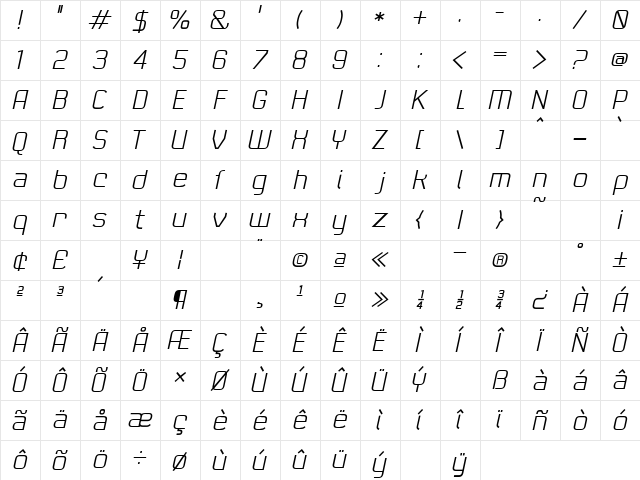
21st RegularItalic Free Font
21st RegularItalic
Style: RegularItalic
Design Context for 21st
21st is a composed and adaptable typeface that performs quietly and consistently across a wide range of design contexts. The slanted form adds forward momentum and visual energy.
Pro Tip: Use 21st for emphasis, pull quotes, and subheadings where its slanted energy can add rhythm to the layout.